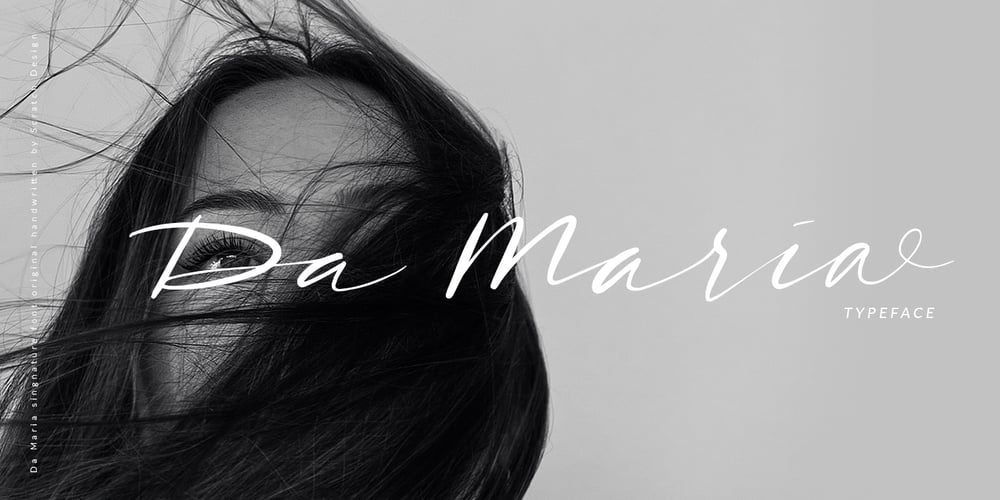
Da Maria Font Family was designed by Gitayogi Irhandi and published by Scratch Design. Da Maria contains 1 styles and family package options. Da Maria is a handmade brush font designed to perfectly combine a romantic script and hand drawn design elements. Da Maria is perfect for wedding invitations, greeting cards, stationery design, social media, quotes and more. This font can also be useful for signature design and logos. Features: Uppercase & Lowercase Numbers Punctuation Ligatures Alternates Multilingual Support (ÀÁÂÃÄÅÇDÐEÈÉÊËIÌÍÎÏNÑOØÒÓÔÕÖUÙÜÚÛWYÝŸỲŸÆŒßÞþ) Support in Mac and Windows OS, easy to install We hope you like it and thank you so much for purchase.